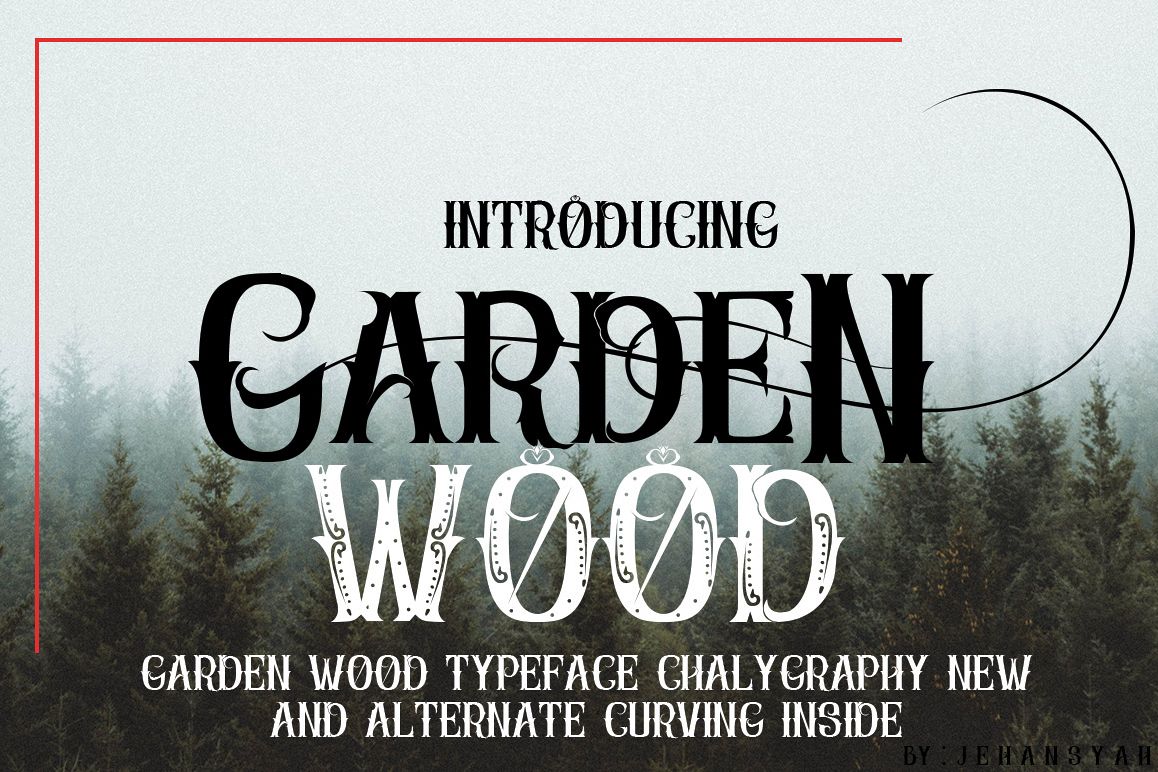
Garden Wood
Garden Wood This font was designed by handwriting, and it has a modern
and unique forms of calligraphy, the writing style is very natural and multiple
language support.
and alternates curving inside